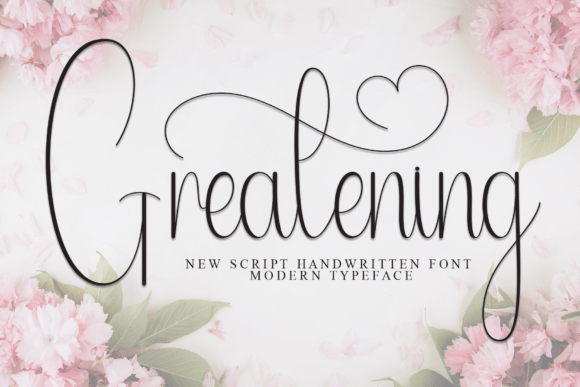
Have you ever been in the middle of brainstorming a new design concept, only to be struck by the perfect font to bring it all together? That’s exactly what happened to many designers who discovered the Greatening Font. This stylish handwritten script font combines modern elegance with a playful touch, making it the perfect choice for logos, packaging, and invitations.
The Greatening Font’s fluid strokes and charming curves add a personal touch to any design, making it a valuable asset for designers looking to elevate their projects. With its unique blend of sophistication and creativity, this typeface is sure to leave a lasting impression. Whether you’re working on a high-end brand or a quirky DIY project, the Greatening Font is the perfect addition to bring your vision to life.
Key Features of Greatening Font
- Unique Character Set: Greatening Font features a unique set of characters, including ligatures, swashes, and ornaments, which can be used to add a touch of elegance and sophistication to any design.
Greatening Font Review
Overall, I have mixed feelings about the Greatening Font. While it has its unique charm, it also has some major drawbacks.
- The font’s irregularities and swashes add a touch of personality to text, making it perfect for creative and artistic projects.
- The bold and condensed versions of the font are great for headlines and titles, providing a clear and eye-catching visual hierarchy.
- The font is highly legible, even at small sizes, making it suitable for body text and other long-form content.
- The font’s irregularities can also make it difficult to read for some users, particularly those with dyslexia or other reading difficulties.
- The font’s condensed versions can be challenging to typeset, especially when working with narrow columns or tight margins.
- The font’s lack of a clear, neutral weight can make it difficult to use as a body text font, as it can be overwhelming or distracting.
The Greatening Font is a unique and creative font that can add a touch of personality to a project, but it’s not without its limitations. While it’s perfect for artistic and creative projects, it may not be the best choice for body text or other projects that require a clear and neutral visual hierarchy.